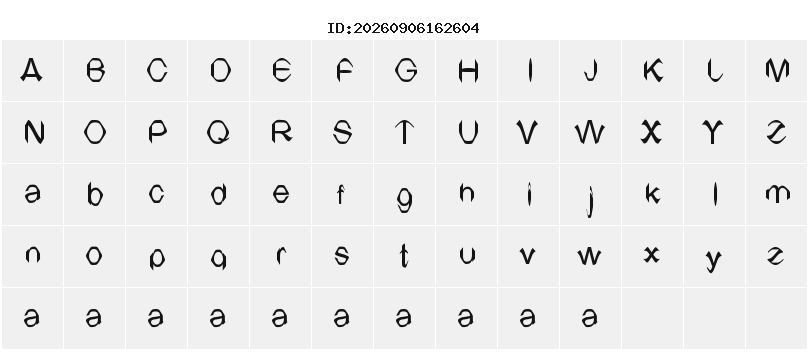
TV Arial Preview
• Font Name: TV Arial
• Font ID: TV Arial
• Full Font Name: TV Arial
About TV Arial.ttf
TV Arial.ttf is a modern, elegant sans-serif font designed for ultimate readability and visual harmony. Perfect for branding, headlines, web design, and print materials.